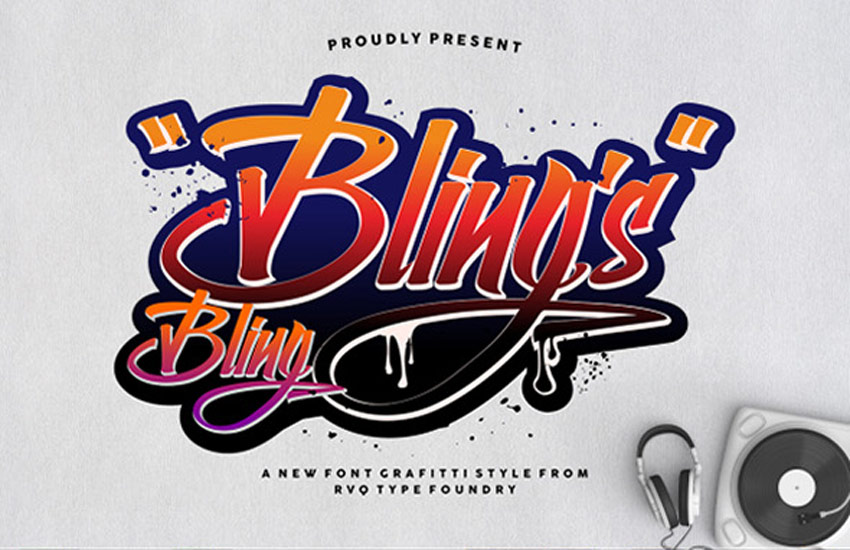
Graffiti Font On A White Background For Easy Use.
If you want to create professional printout, you should consider a commercial font. Hacen altaroute is an innovative handwriting font that combines the originality of the it’s appearance as a typographical line for idealistic writing and creativity in the evolving literary. Get 29 hip hop fonts, logos, icons and graphic templates on graphicriver.
Paint Cans By Graffiti Fonts.
Fonts That Mimic These Sprayed Writings Are Also Very Fancy.
The subway types by hvd fonts. Vector set of letters and numbers in hip hop and street art graffiti style. The mix between hiphop and minimalist gives the flyer template a personalized style.
Graffiti Classic™ By Robert Arnow.